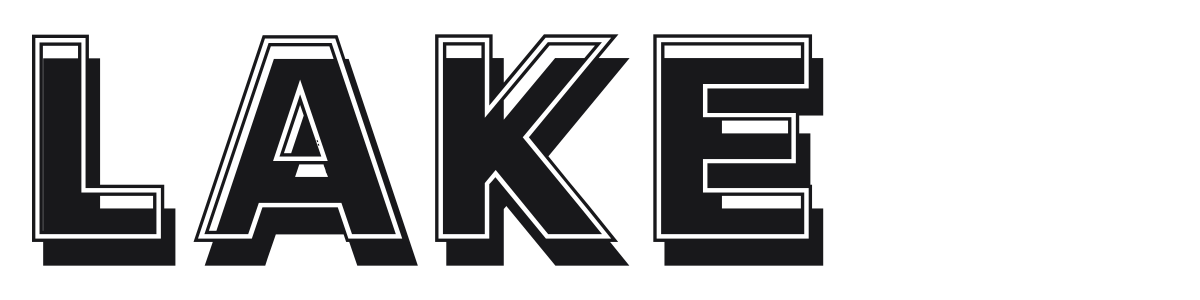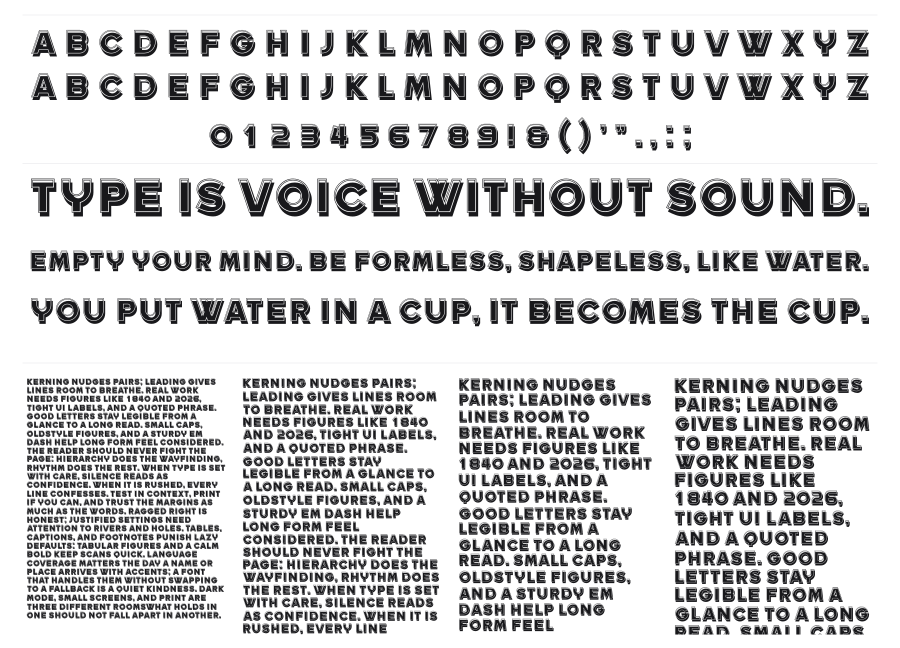
Lake
Lake is a bold retro display font built around a classic inline-shadow layer effect that gives each character a pressed, three-dimensional look. The wide, heavy proportions and white stripe running through each stem recall mid-century American signage, carnival lettering, and vintage sports typography. It commands attention at large sizes and carries strong nostalgic energy.